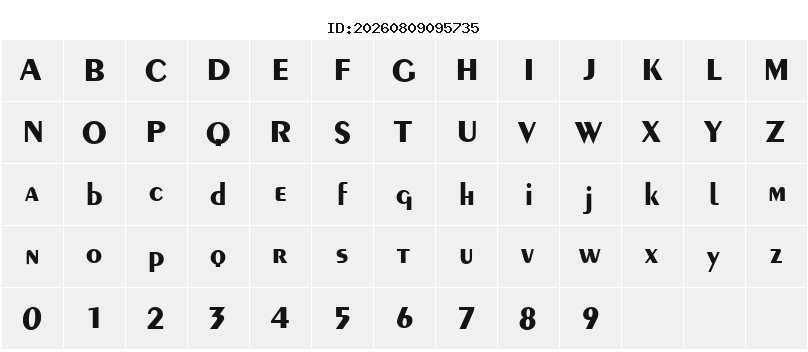
• Font Name: Peoria
• Designer: SoftMaker Software GmbH
About Peoria.ttf
Peoria.ttf is a modern, elegant sans-serif font designed for ultimate readability and visual harmony. Perfect for branding, headlines, web design, and print materials.